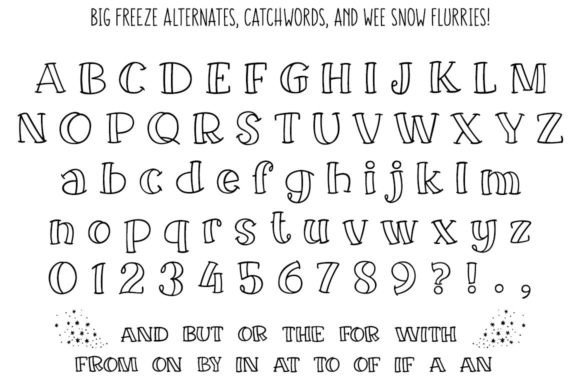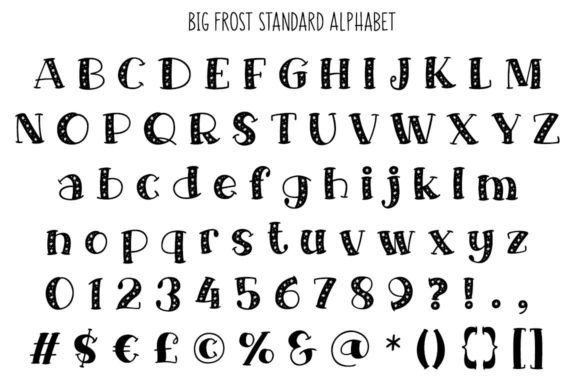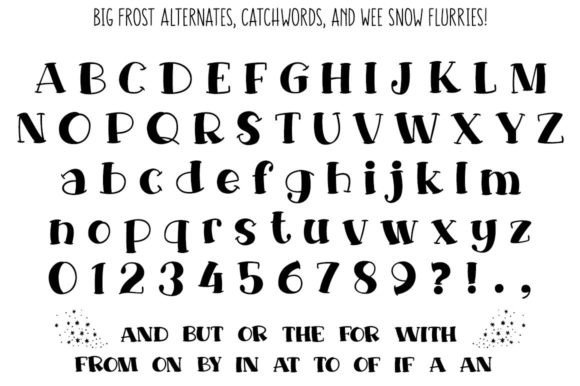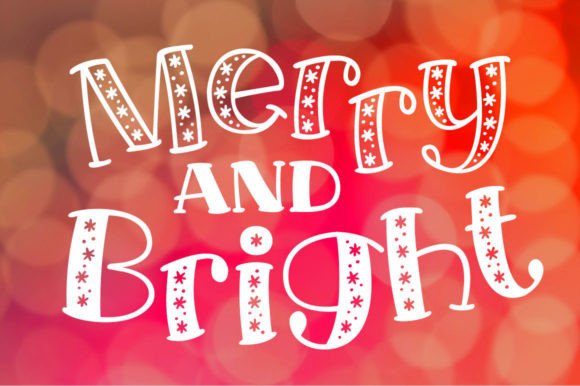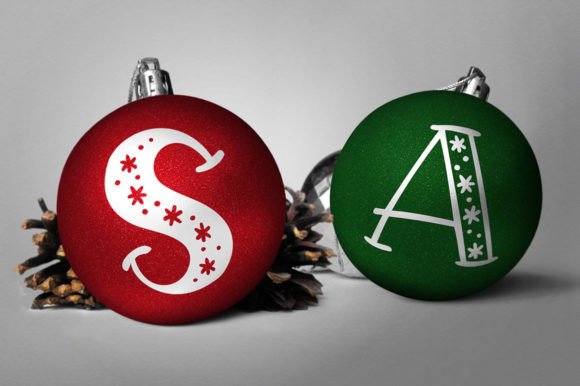
Winter Wonderland in Type: Introducing Big Freeze and Big Frost Font
I still remember the first time I saw a beautifully designed winter-themed invitation – the intricate snowflakes, the cozy font, and the overall festive feel. It sparked an idea in my mind, and that’s how Big Freeze and Big Frost Font was born. This stunning duo is perfect for the winter holiday of your choice, offering a unique and versatile way to add a touch of wintry magic to your designs.
Big Freeze and Big Frost Font is a two-sided typeface that combines a solid and a hollow design, each filled with a flurry of snowflakes. The best part? Each font comes with a full alternate alphabet without the snowflakes, making it incredibly versatile for designers. Whether you’re creating a Christmas card, a winter-themed blog post, or a cozy advertisement, this font bundle is sure to bring a touch of winter wonder to your work.
- Font Family: Big Freeze and Big Frost are two related font families, offering a range of styles to suit various design needs.
- Font Sizes: Big Freeze and Big Frost fonts are available in multiple sizes, including 4x, 6x, 8x, 10x, and 12x, catering to various design requirements.
- Resolution: Designed for high-resolution displays, these fonts ensure crisp and clear readability on screens and printed materials.
- Unique Characteristics: Big Freeze and Big Frost fonts feature a unique, hand-drawn style with intricate details and ornate flourishes, adding a touch of elegance to any design.
Designer Review: Big Freeze and Big Frost Font
Overall, I found the Big Freeze and Big Frost Font to be a unique and creative font duo. It offers a range of stylistic options, from playful to elegant. ✨ One of the things that stands out is the versatility of the font. It can be used for a variety of projects, from children’s books to luxury branding.
Some of the key features that I appreciated include:
- ✨ Wide range of stylistic sets, making it easy to match the font to the tone of your project
- ✨ High-quality design, with precise lines and shapes
- ✨ Supports multiple languages, making it a great choice for global branding
- ⚠️ The font may not be suitable for very small text sizes, as the lines and shapes can become distorted
- ⚠️ Some of the stylistic sets may be more suited to specific industries or themes, limiting its versatility in certain contexts
Overall, I would recommend the Big Freeze and Big Frost Font to designers who are looking for a unique and creative option. While it may have some limitations, its versatility and high-quality design make it a great choice for a wide range of projects.
Big Freeze and Big Frost fonts are commonly used for:
1. Winter-themed designs and graphics.
2. Titles and headings in presentations and documents.
3. Branding and logos with a frosty or icy theme.